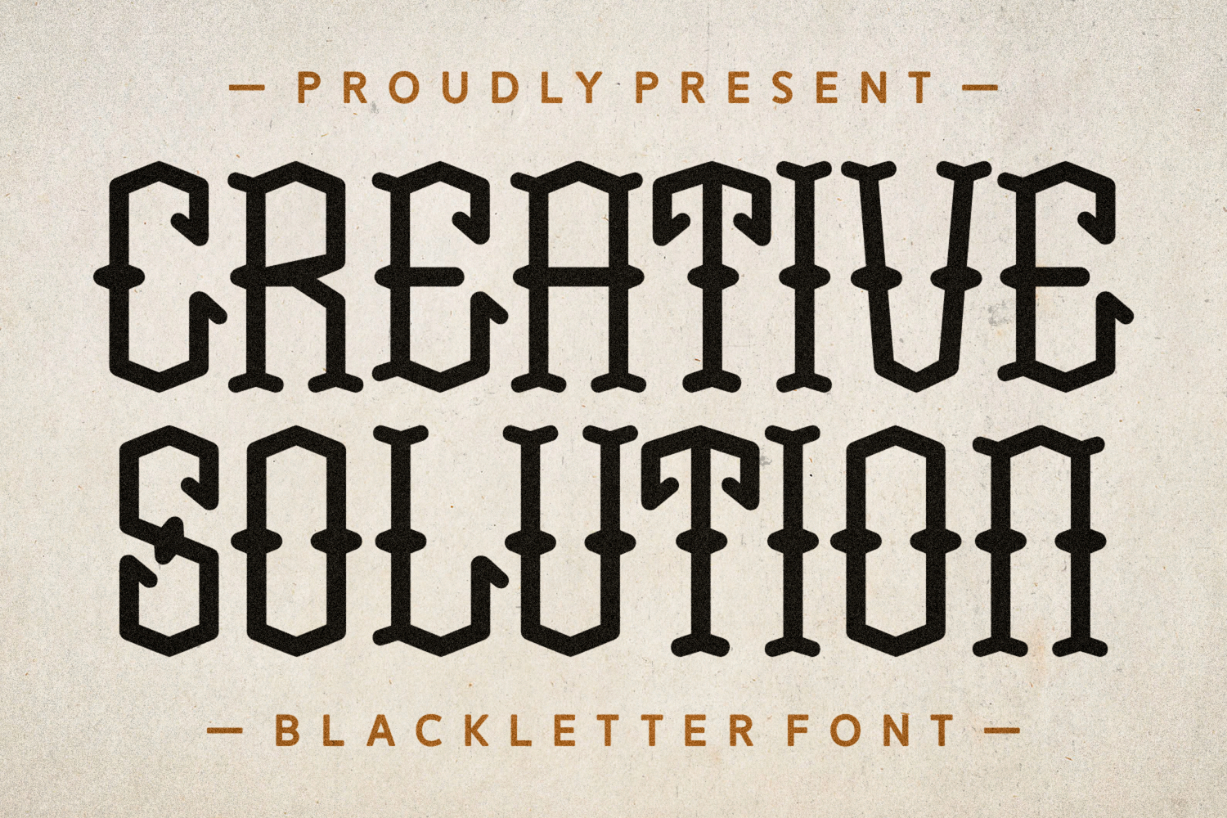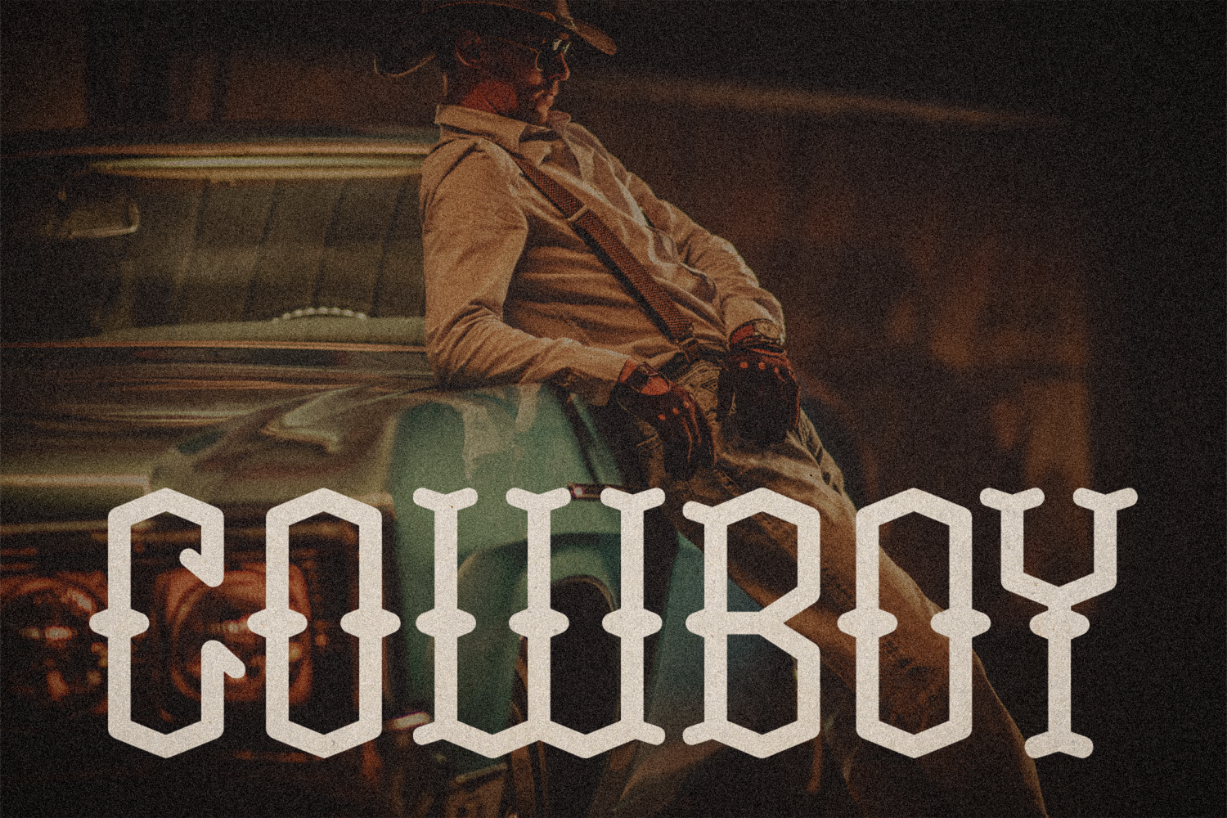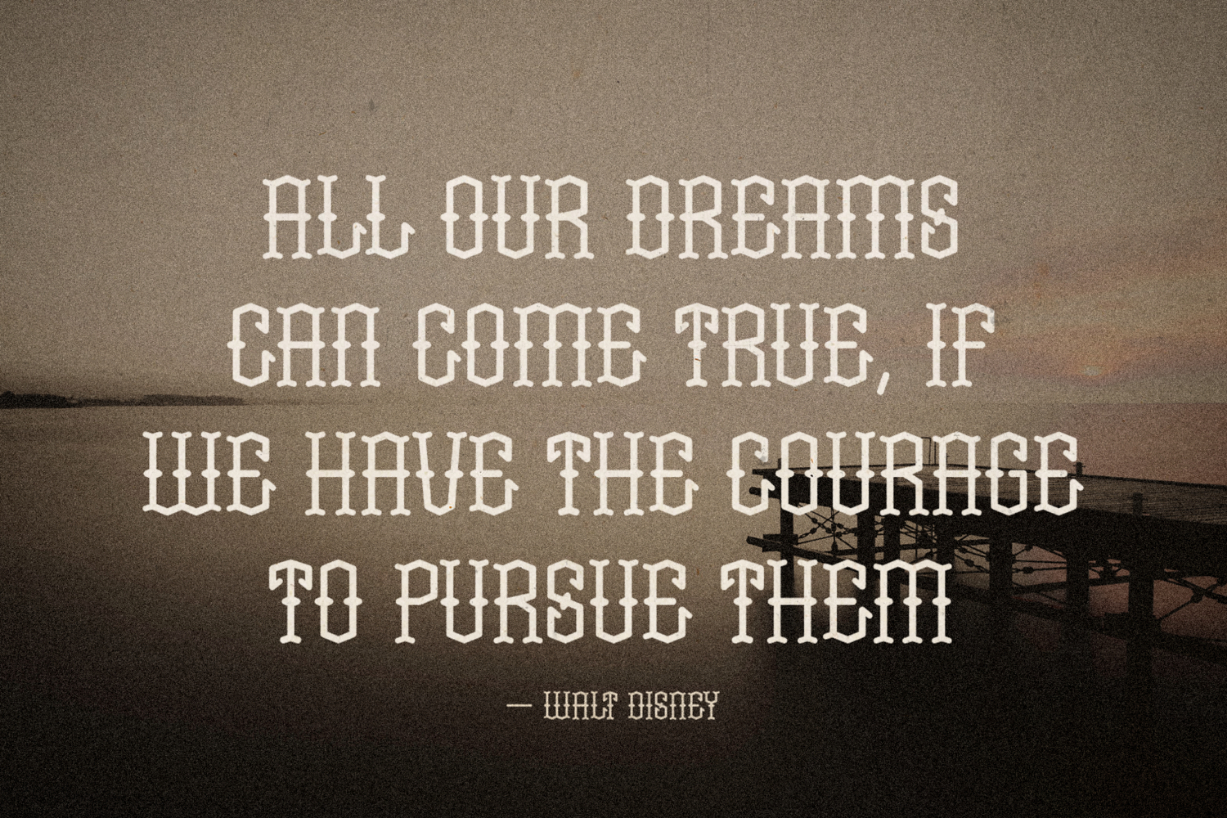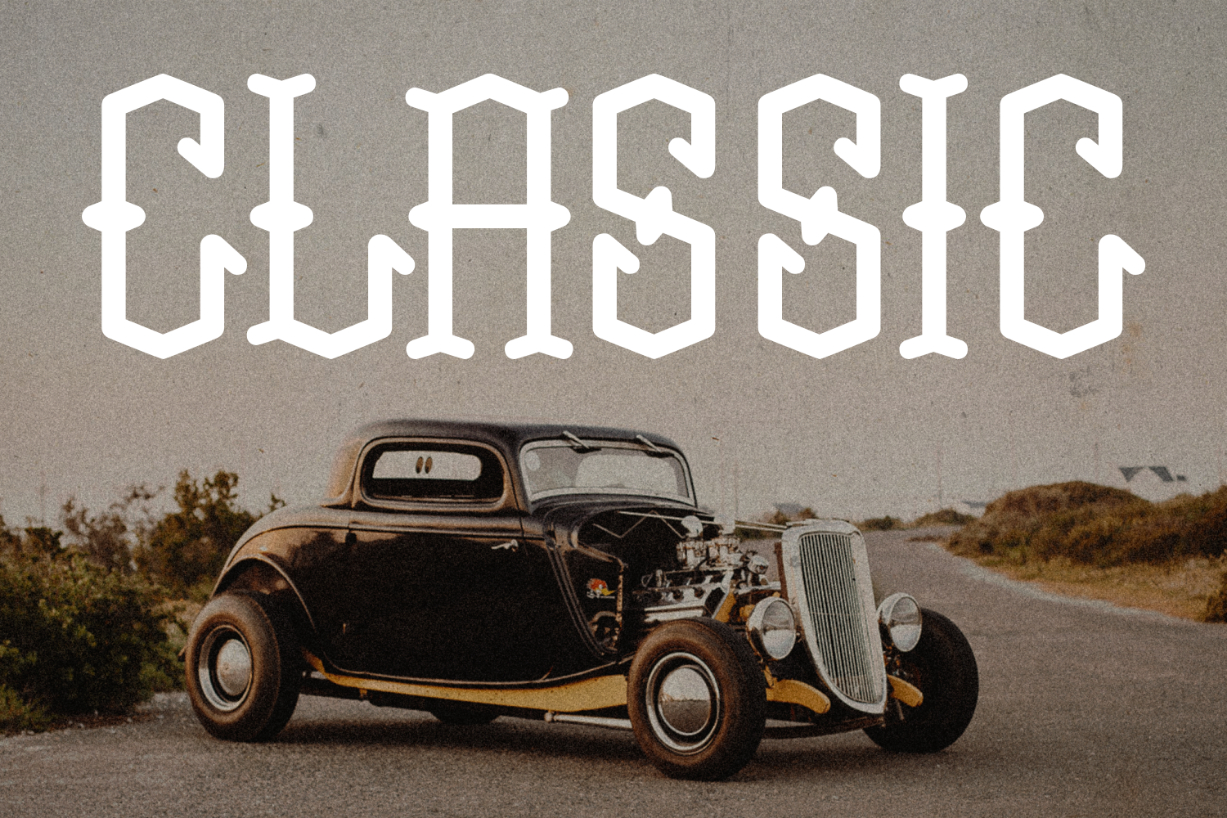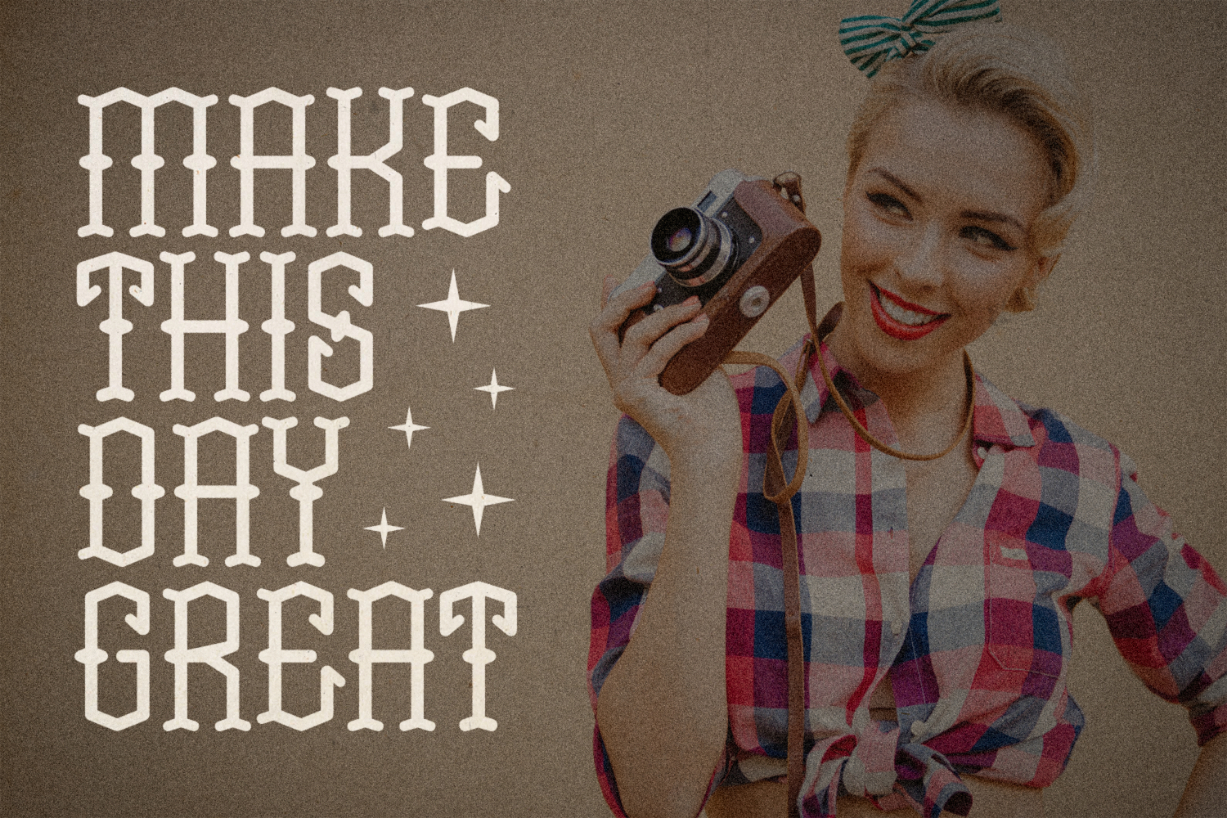
Creative Solution Font
About Creative Solution Font
Creative Solution is a classic, minimalist blackletter font. Add a striking look to your typography projects with this unique and powerful font! It looks fantastic on headers, advertisements, posters, banners, signage, and more.